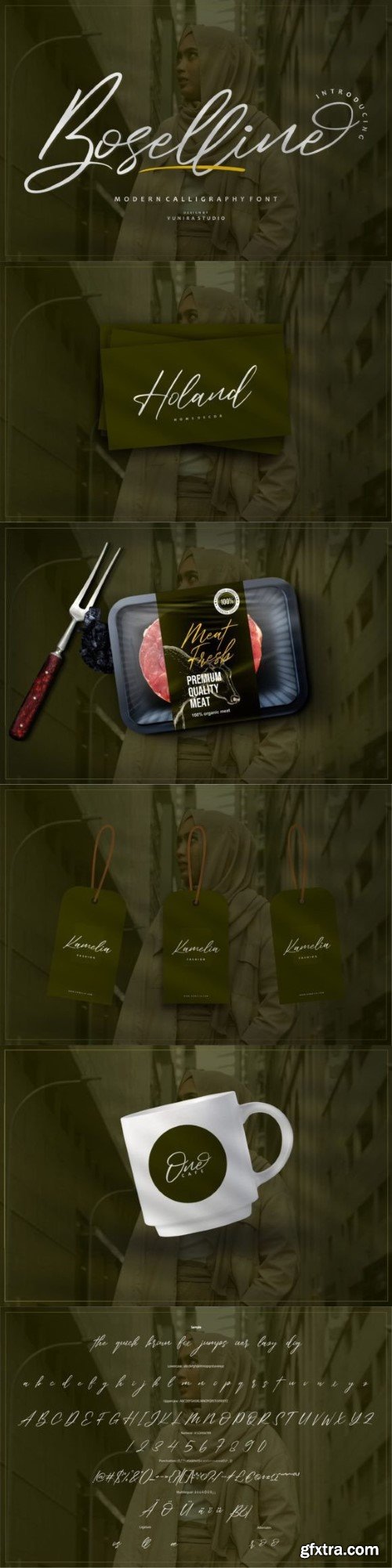
暴塞尔内字体
Boselline is a modern calligraphy font that effortlessly blends sophistication with a contemporary touch. Its flowing strokes and elegant curves bring a stylish flair to your projects, making it perfect for a range of applications. Whether you’re designing invitations, branding, or any creative endeavor, Boselline adds a touch of modern charm to your typography. Elevate your work with this sleek and versatile font, making a statement with every stroke.